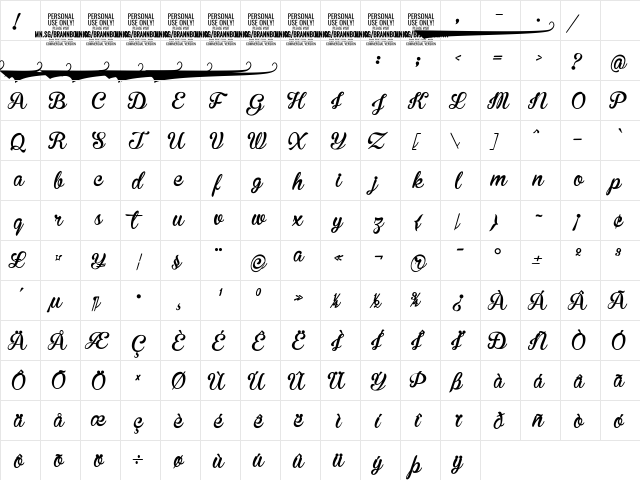
Brannboll Connect PERSONAL USE Regular
| Foundry | Mans Greback |
| Designer | Mans Greback |
Design Context for Brannboll Connect PERSONAL USE Typeface
Brannboll Connect PERSONAL USE is a composed and adaptable typeface that performs quietly and consistently across a wide range of design contexts.